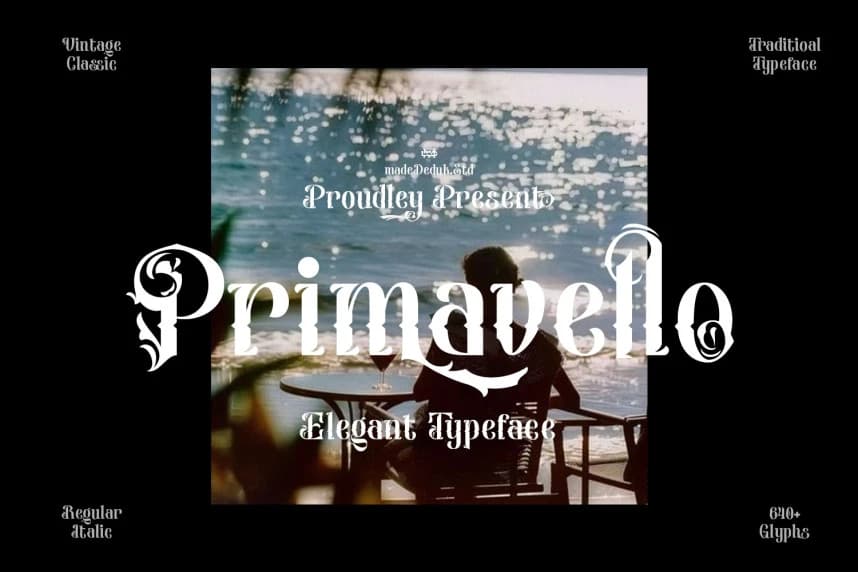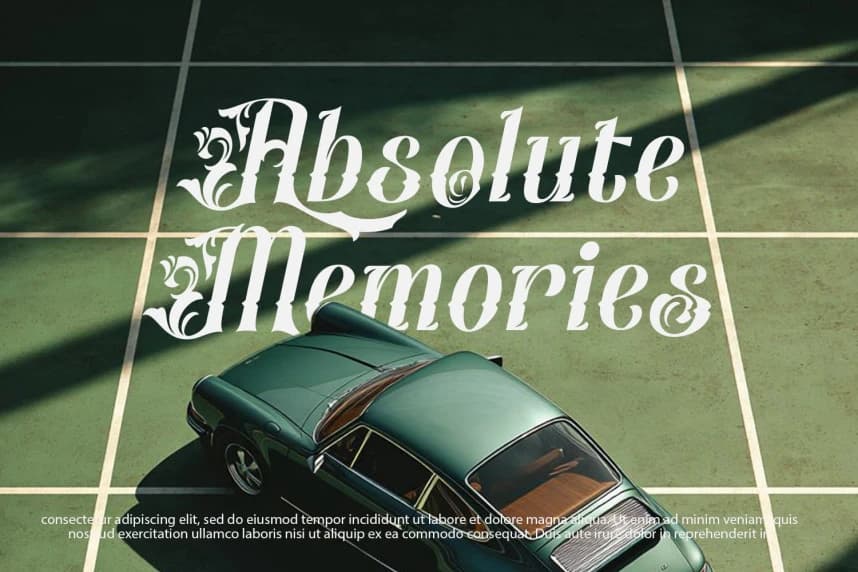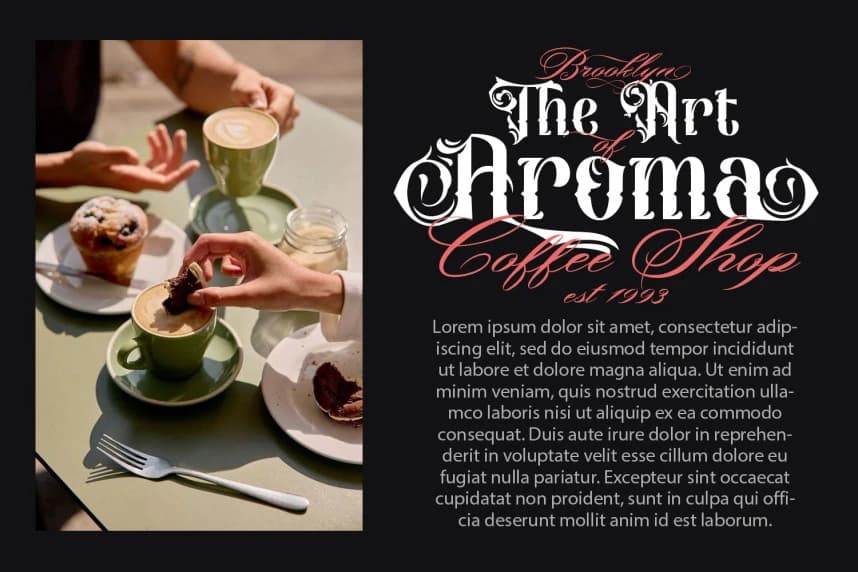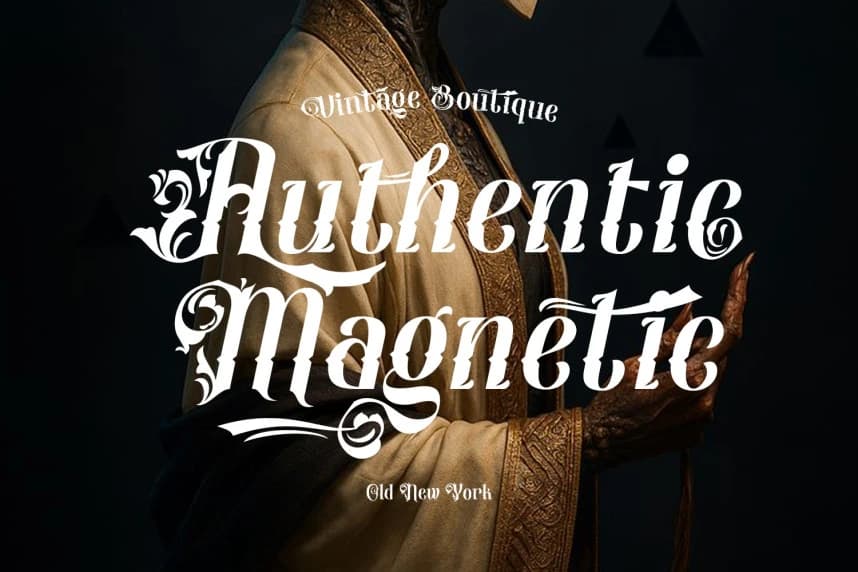
Primavello Font
Primavello Font - This font features an elegant modern-decorative character with a tall, bold letter structure, creating a luxurious, authoritative, and classy impression. The combination of towering vertical letters and subtle curved details creates a balance between strength and elegance.